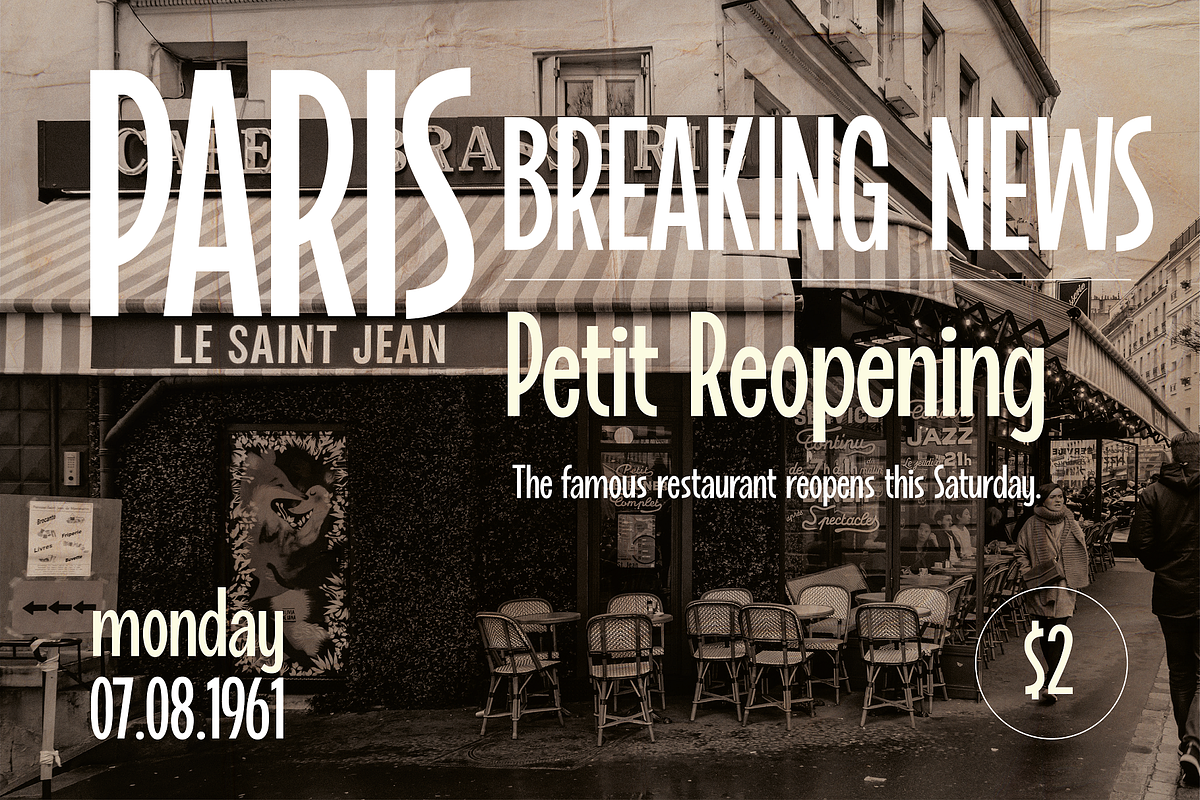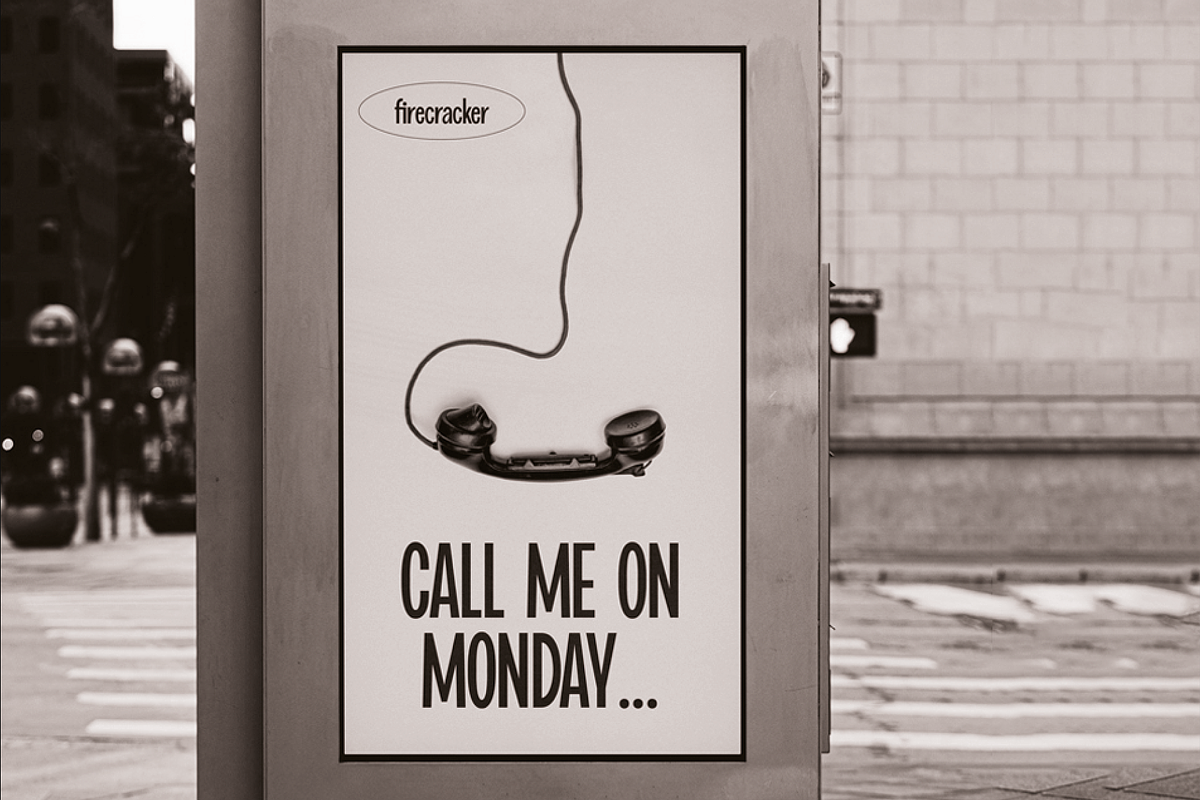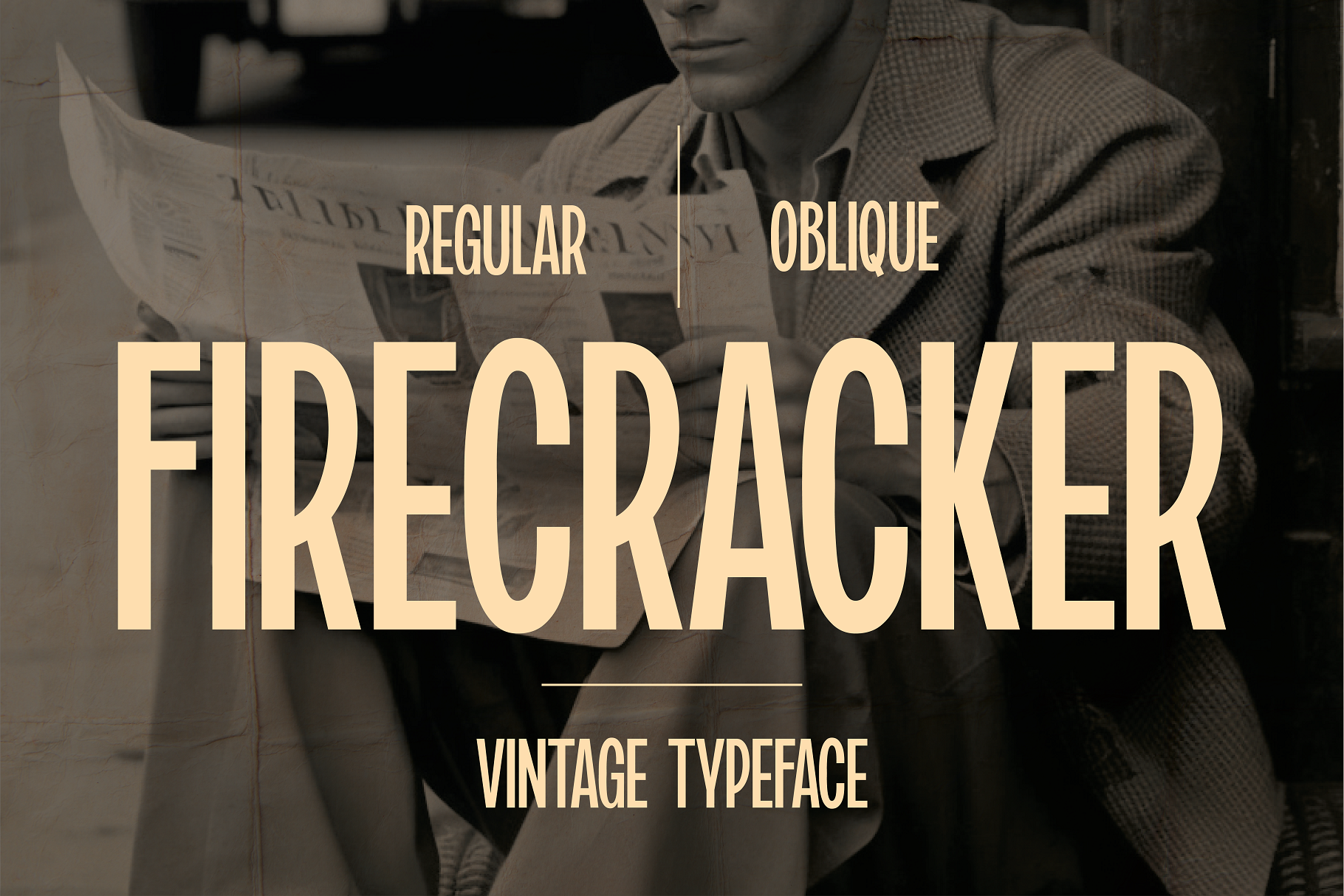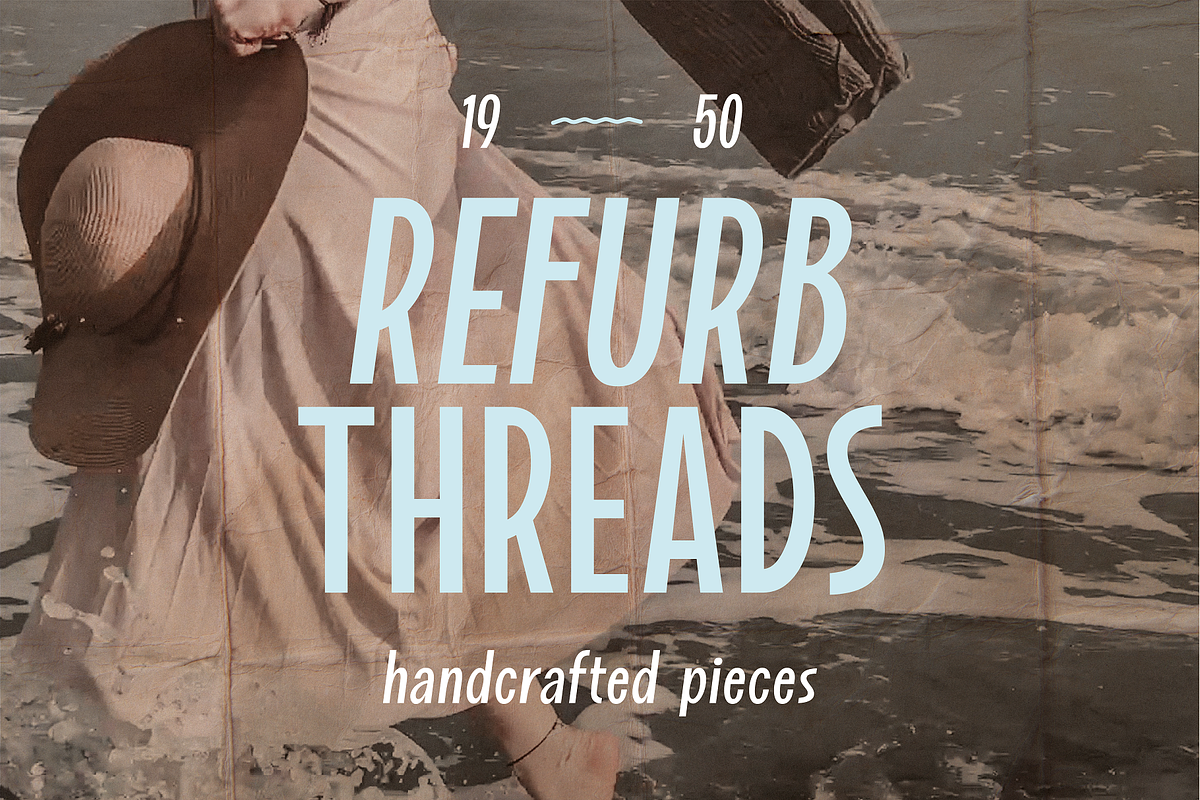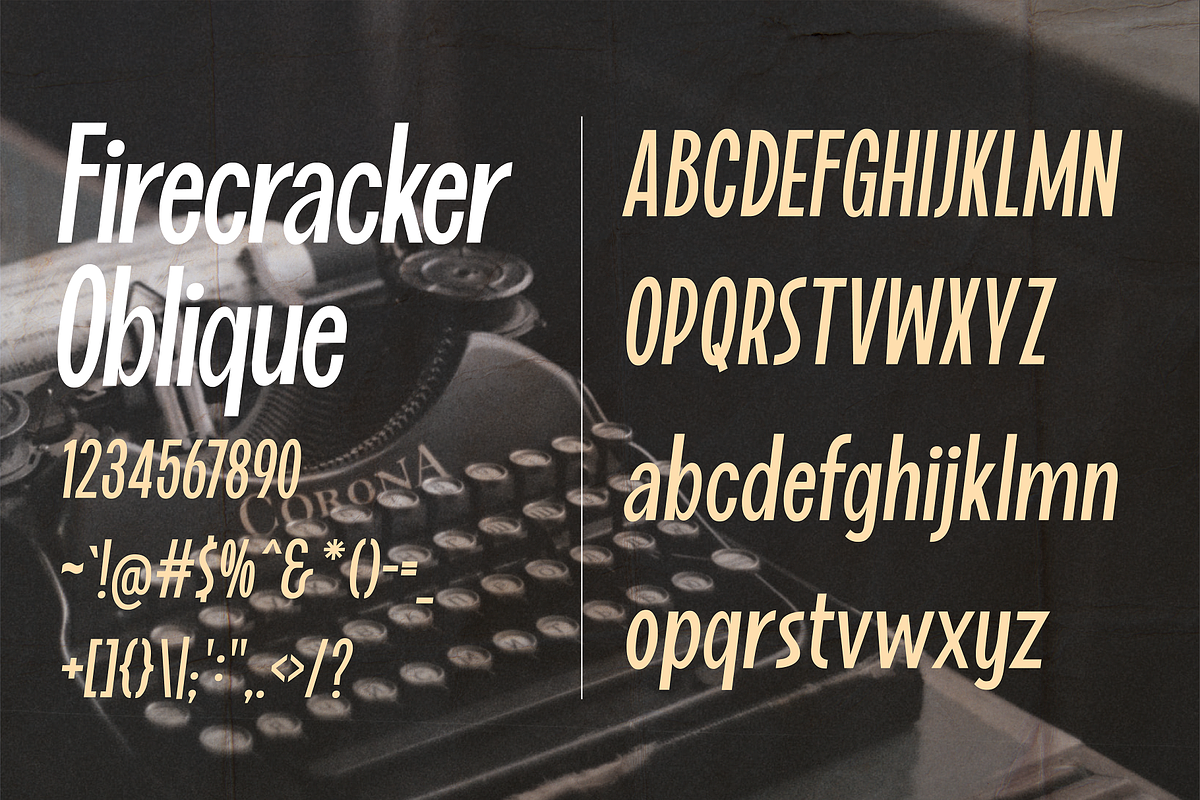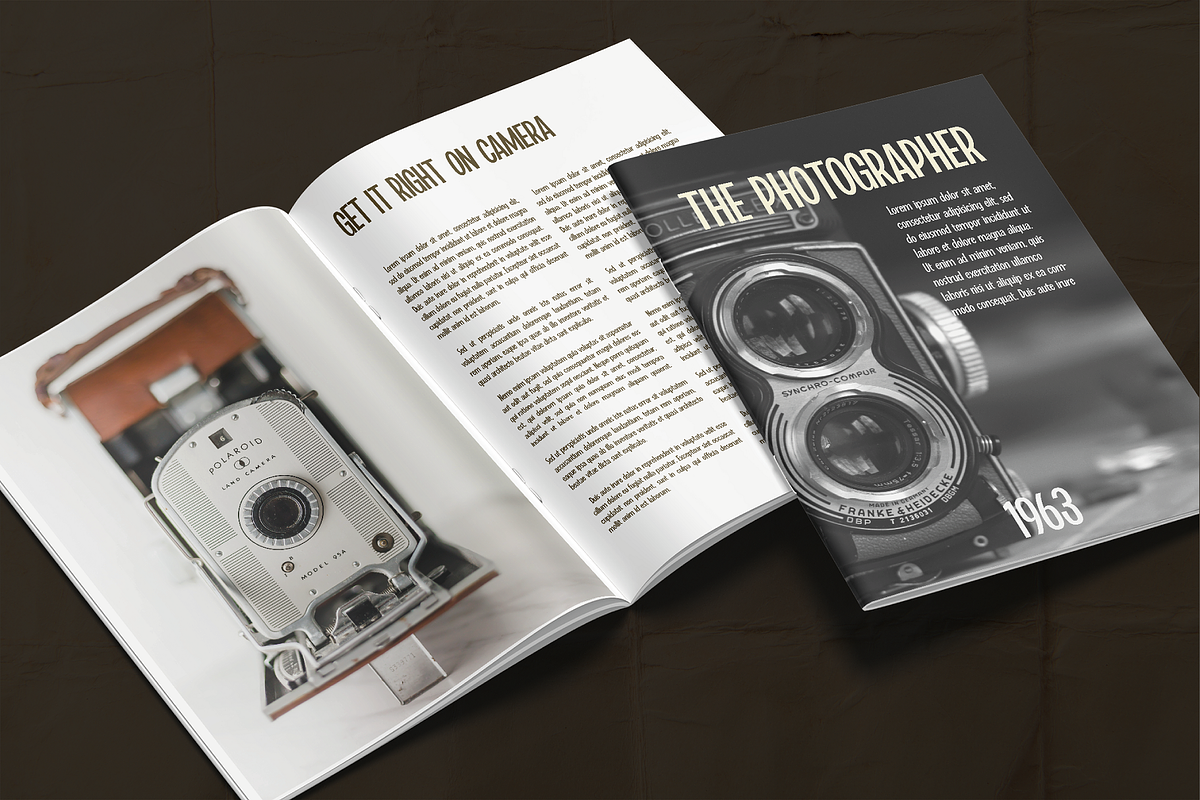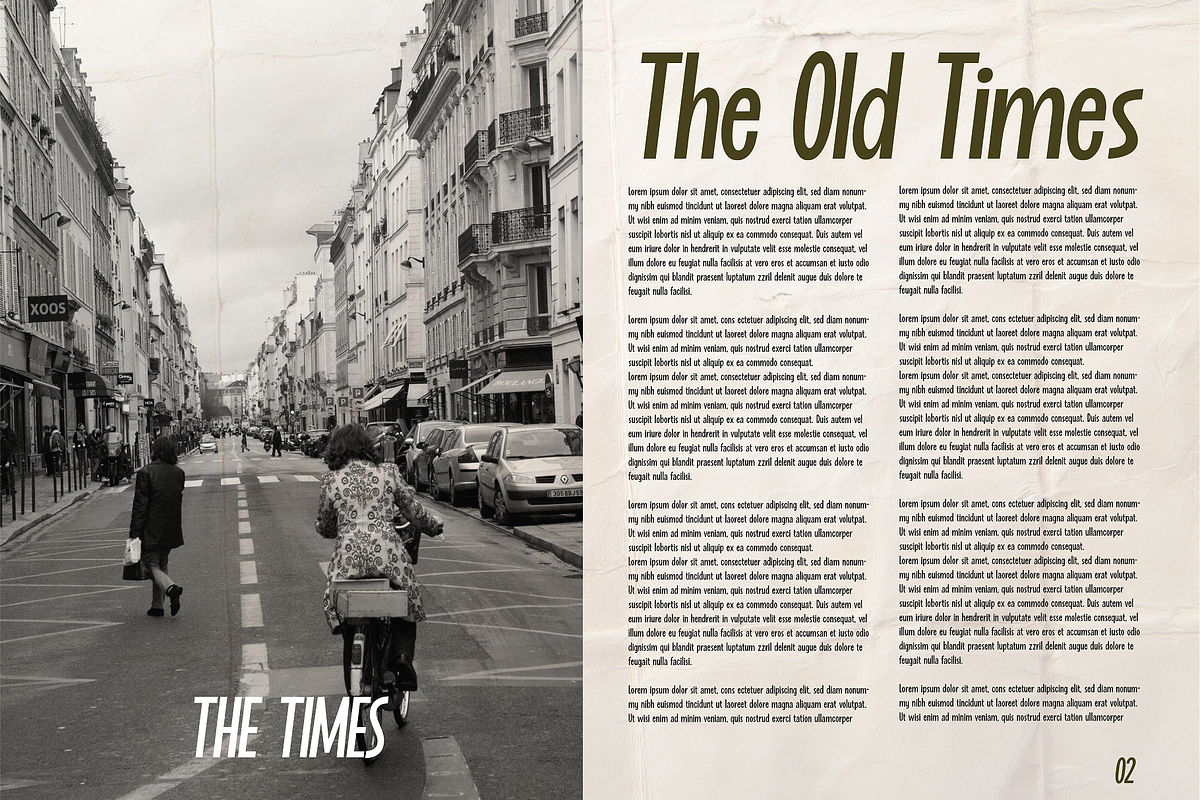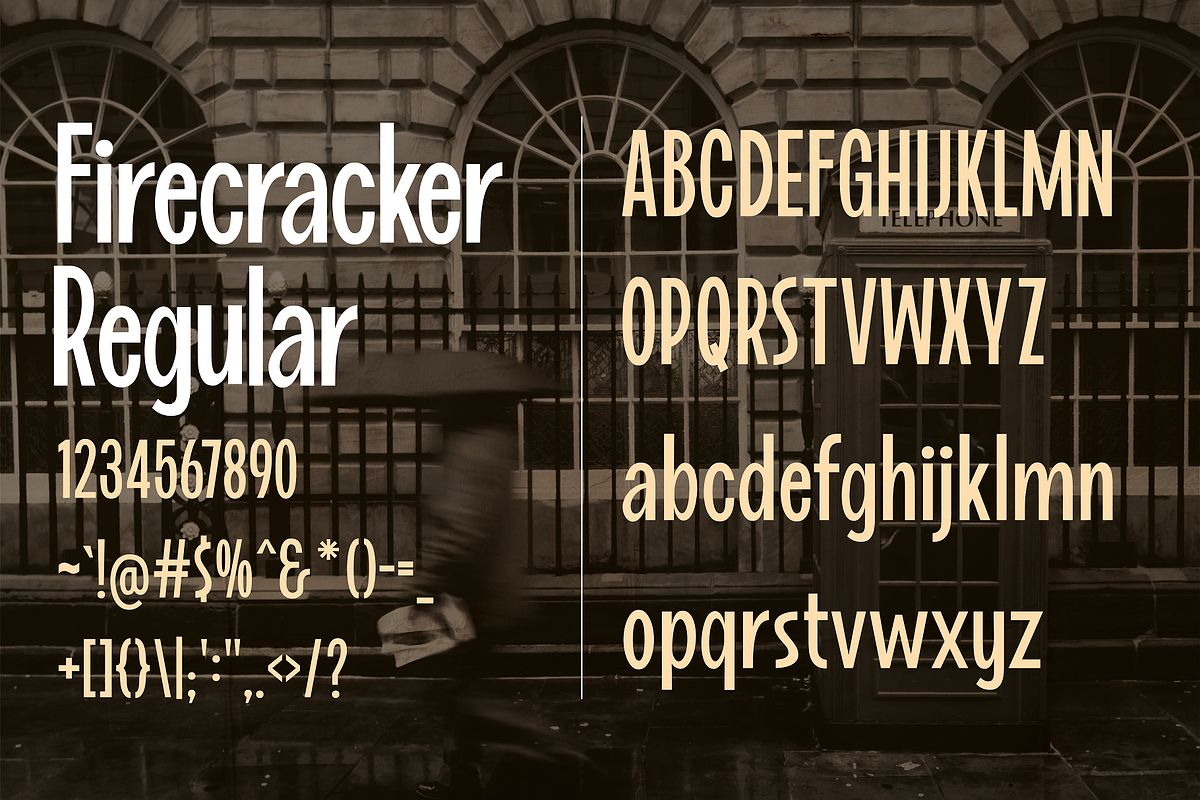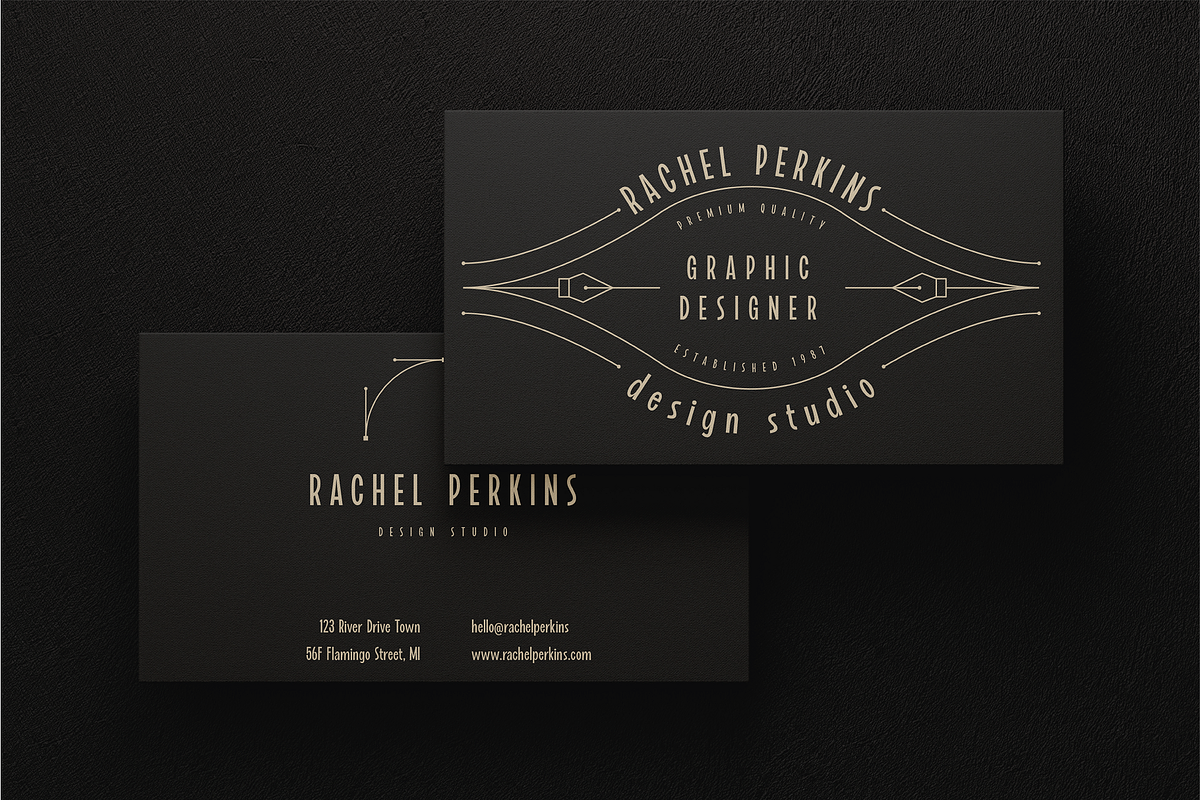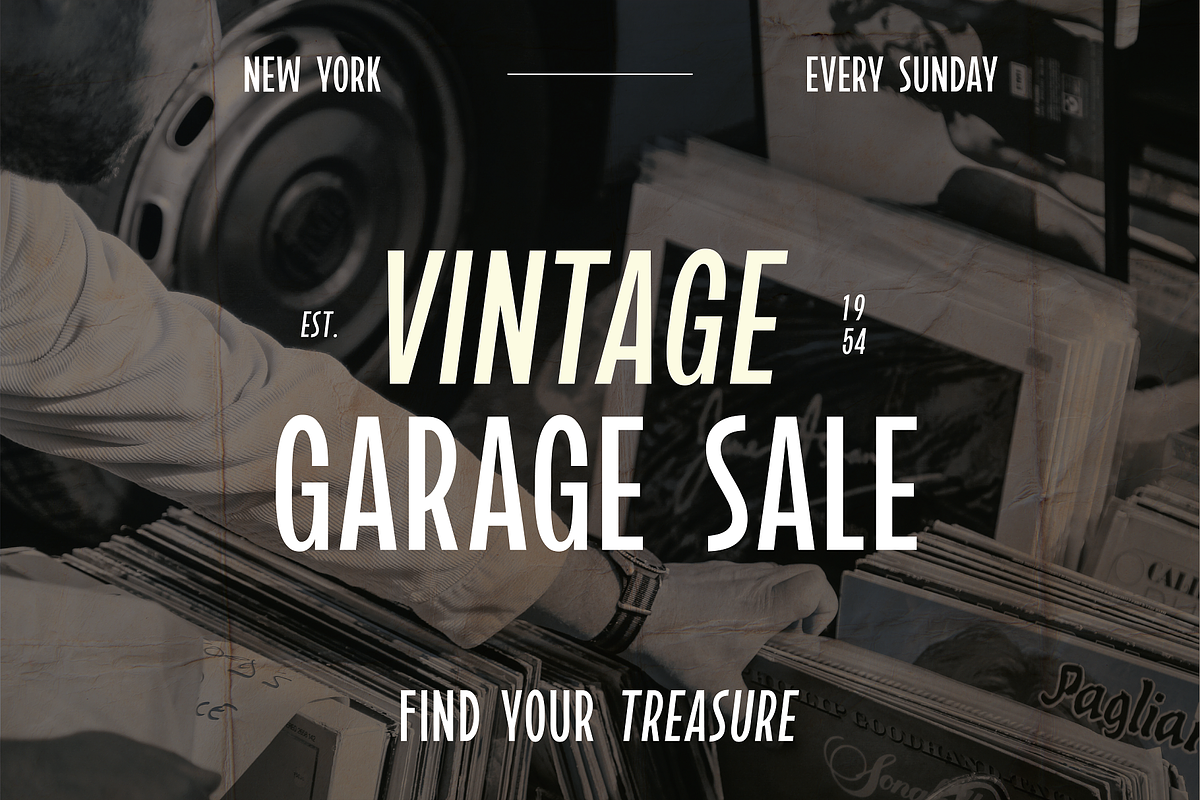
Firecracker - Vintage Typeface
Firecracker is a true blast from the past, taking you back to the vibrant and exciting era of the 1950s and 1960s. Its beautiful letters evoke the energy and enthusiasm of that time. Perfect for use magazines, newspapers, signage, branding, packaging, and more.
Firecracker comes in two different styles, regular and oblique, allowing you to add a touch of retro flair to any project. With Firecracker, you'll be able to transport your audience back in time and create designs that are both nostalgic and timeless.